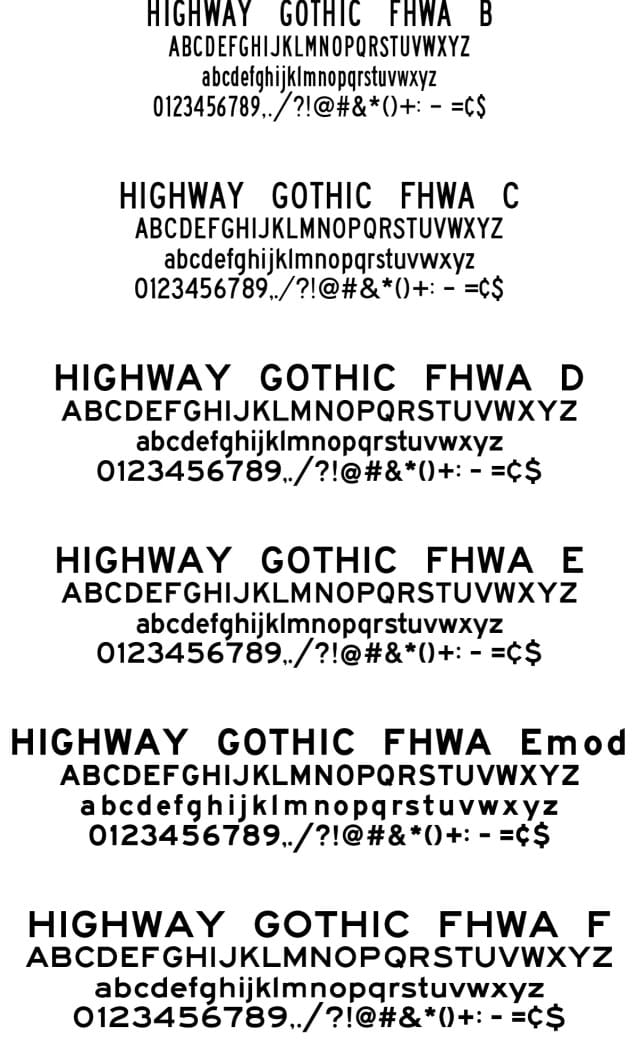
Highway Gothic FHWA 2025 Font, This is a family-built set of the FHWA Highway Gothic fonts, without the different percentage-spaced versions specifically for doing compliant signage. These will be more useful in a graphic design context, although they still have the sign-specific character set. Using optical spacing in Adobe CC (Illustrator, Photoshop, InDesign) will kern them nicely.